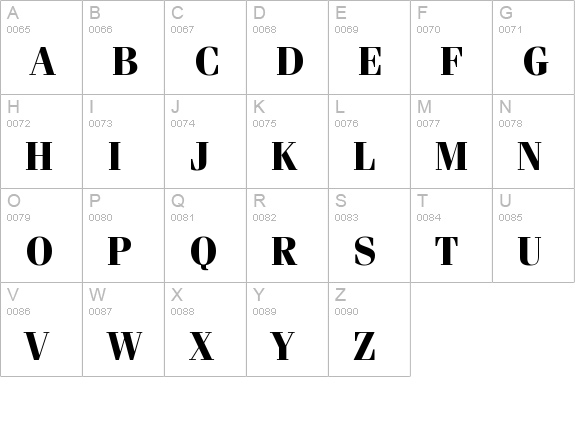
Compendium SSi Bold is a strong, high-contrast variant in the Compendium typeface family \xE2\x80\x94 well suited to headlines, attention-grabbing titles, and strong calls-to-action.
Compendium SSi Bold font is a striking and versatile typeface that exudes elegance and sophistication. Its bold and modern design makes it perfect for headlines, logos, branding, and other graphic design projects. With its clean lines and unique character, Compendium SSi Bold font is sure to make a statement and captivate the audience. The best part is that Compendium SSi Bold font is available for free download at FontsMarket.com. This means you can easily access this high-quality font and use it in your projects without any cost. Don't miss out on the opportunity to enhance your designs with the timeless beauty of Compendium SSi Bold font - download it today and elevate your creative work to the next level.